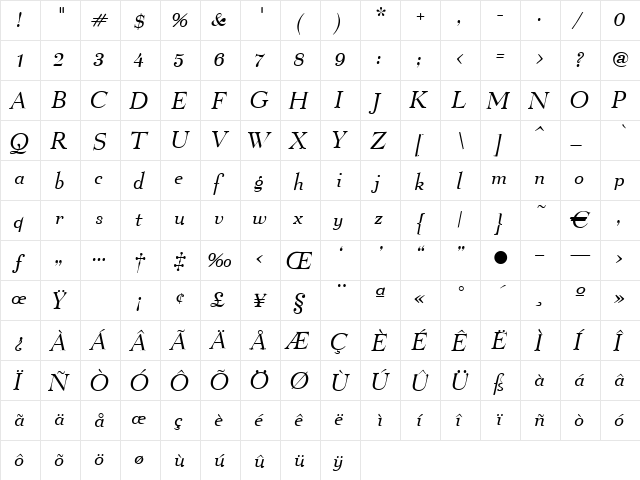
QuartierBookItalic Regular Font Preview
QuartierBookItalic Regular
Design Context for QuartierBookItalic Typeface
QuartierBookItalic offers clean, dependable letterforms without strong stylistic allegiance, making it a practical choice for designers who need flexibility. The dynamic lean of this cut emphasises speed and emphasis in any layout.